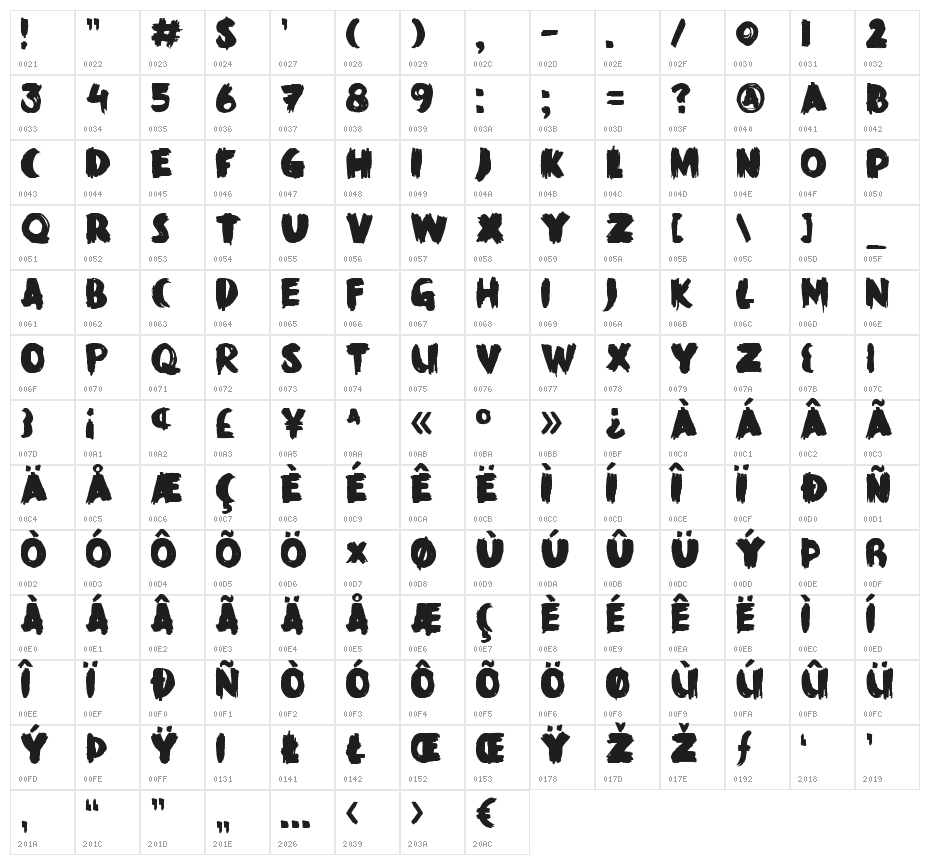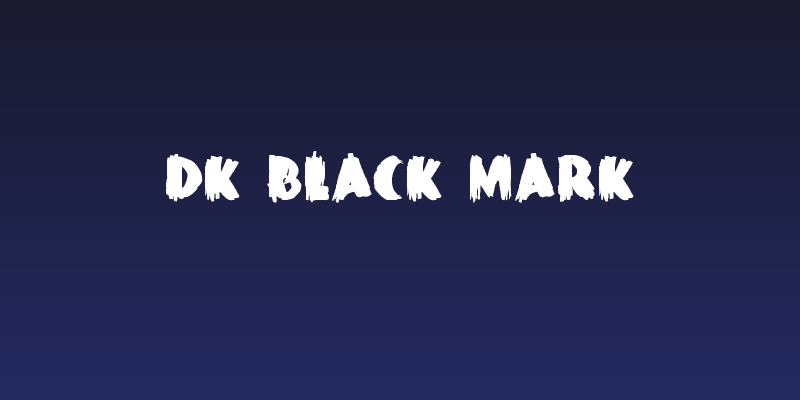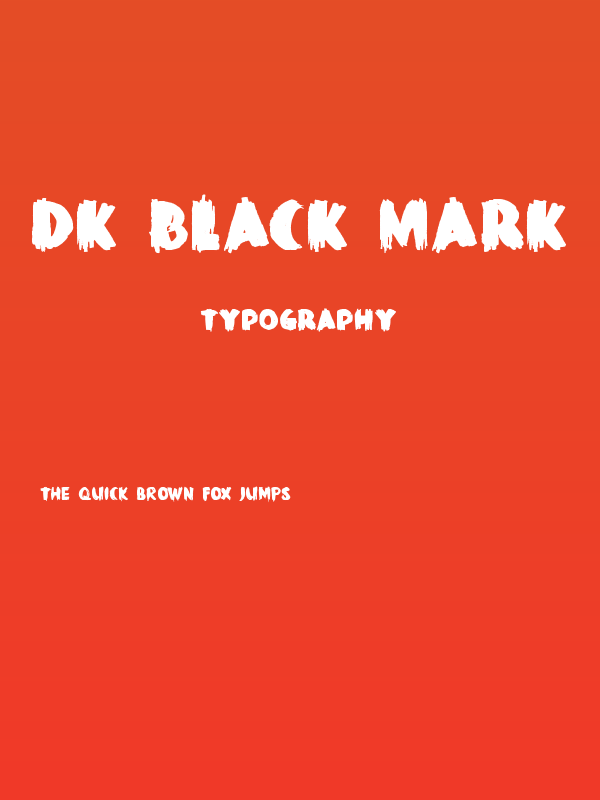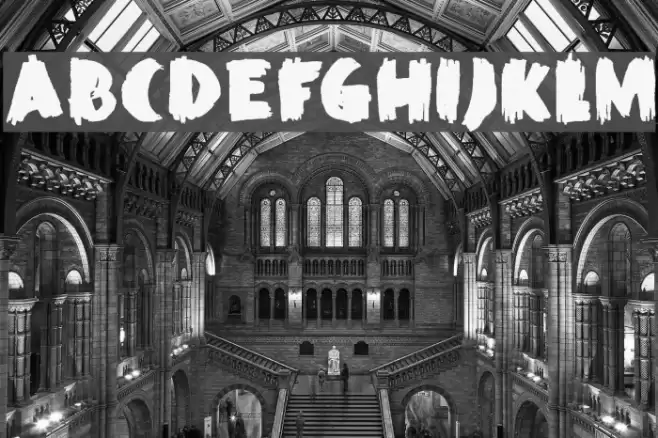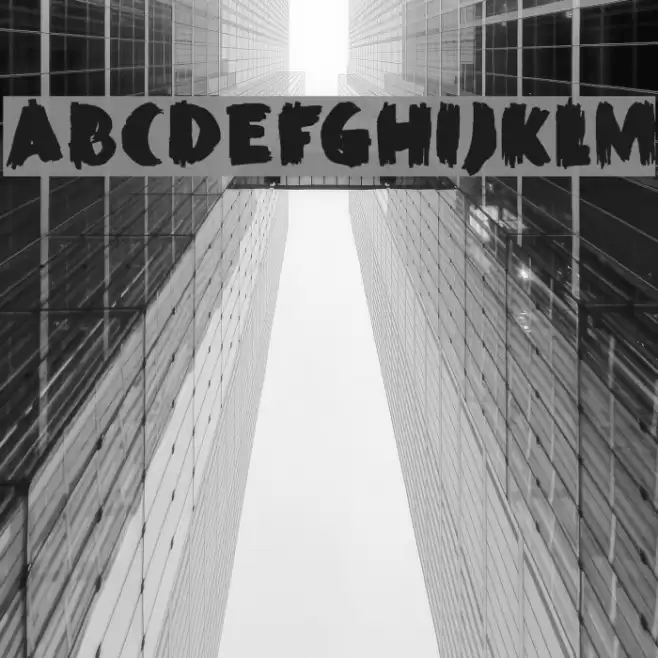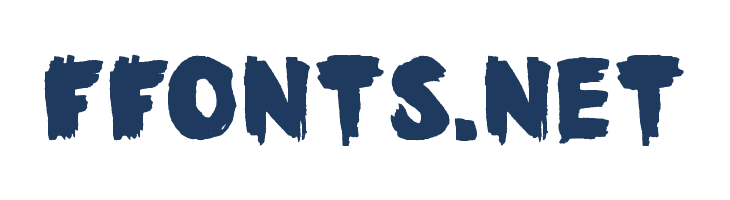
DK Black Mark Font
DK Black Mark Description
This font features a bold and rugged style, characterized by its thick, uneven strokes and distressed edges. The letters appear as if they were painted with a brush, giving them a raw and energetic feel. The uppercase and lowercase characters maintain a consistent weight, enhancing the font's boldness. Numbers and special characters follow the same design, ensuring uniformity across all glyphs. The overall appearance is dynamic and impactful, making it suitable for attention-grabbing designs.
| Proposed Projects | Ideal for posters, album covers, graffiti art, and any project requiring a bold, artistic touch. |